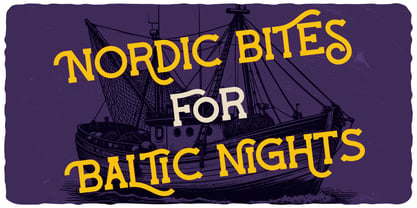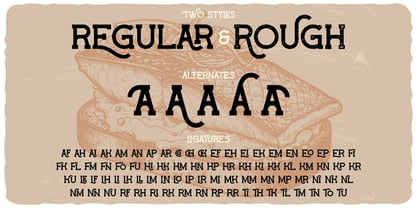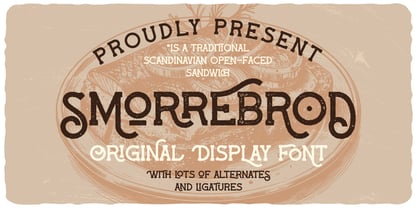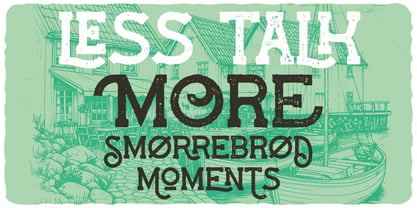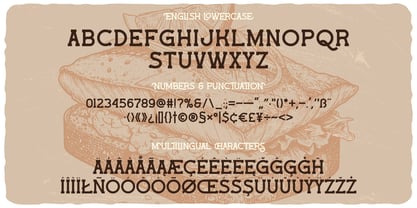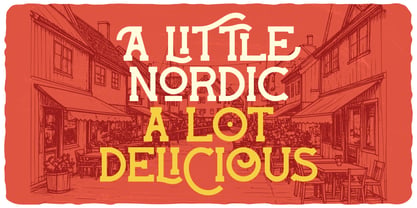
Smorrebrod
by Vozzy
The Smorrebrod Font Family was designed by Oleg Voznyy and published by Vozzy. Smorrebrod contains 2 styles and family package options. More about this family
Introducing the captivating font "Smorrebrod," designed specifically for headlines and accent inscriptions that demand attention. This unique typeface features an extensive range of additional characters, punctuation marks, and multilingual options, making it versatile for various design needs. With a rich selection of standard ligatures, ensure your software supports this OpenType feature to fully utilize its capabilities. "Smorrebrod" is perfect for enhancing your beautiful designs, whether for branding, web use, or editorial projects.
Designers: Oleg Voznyy
Foundry: Vozzy